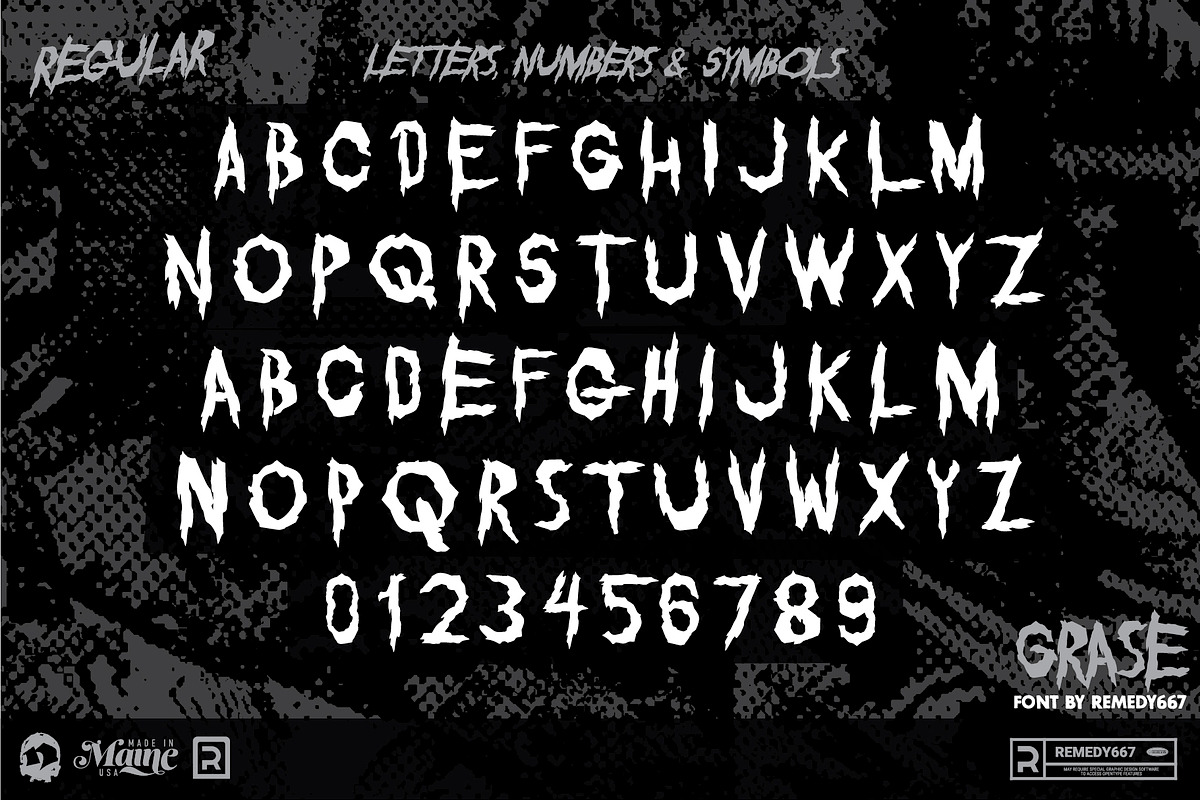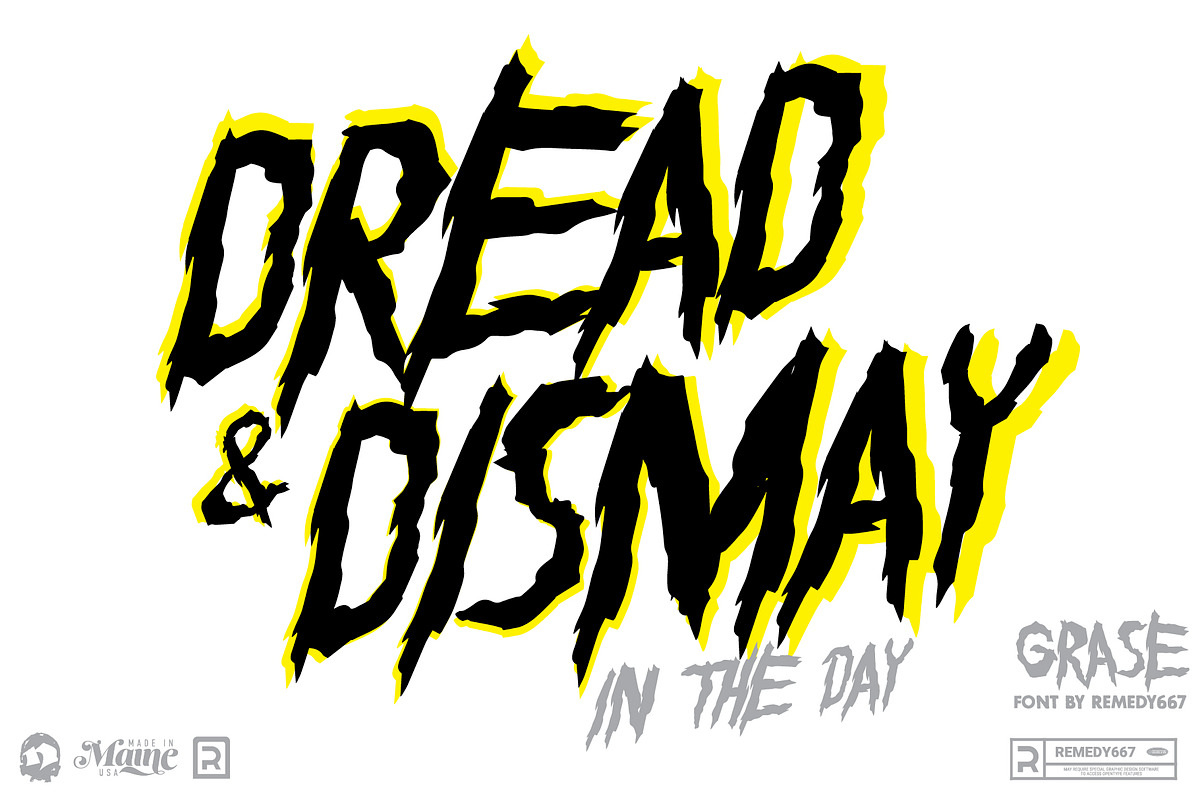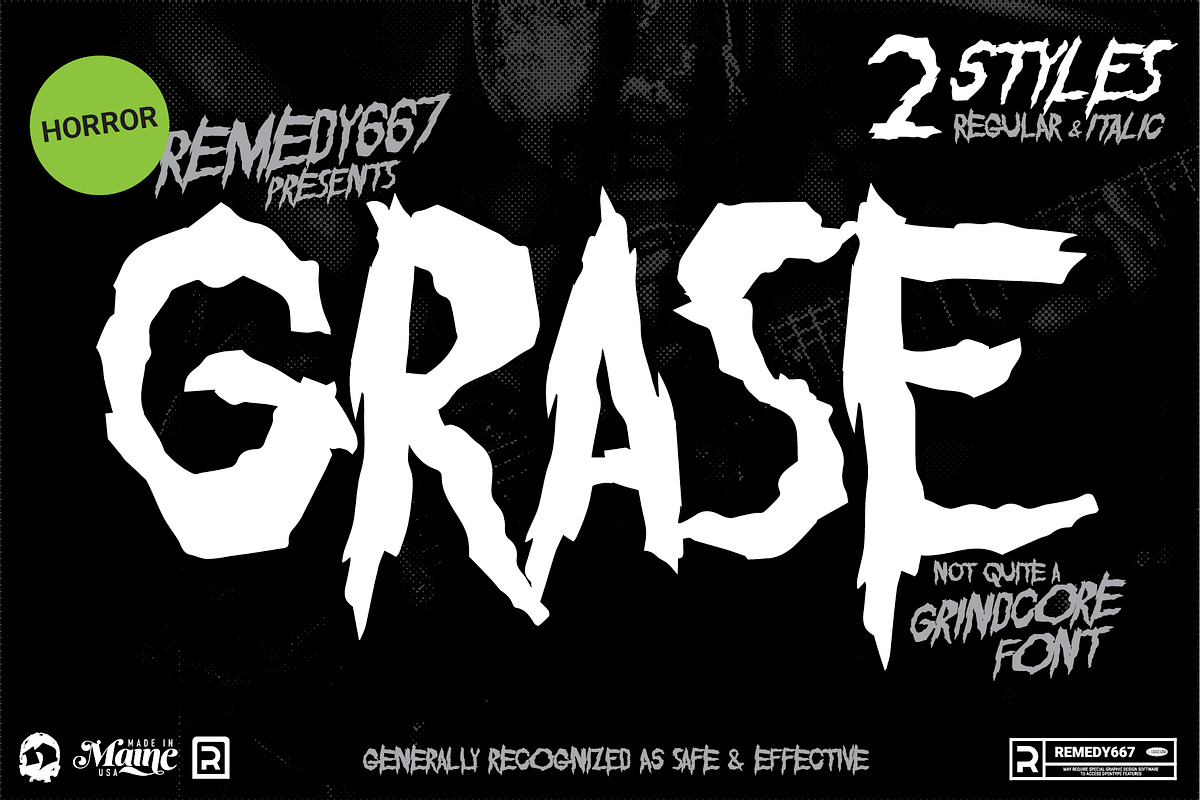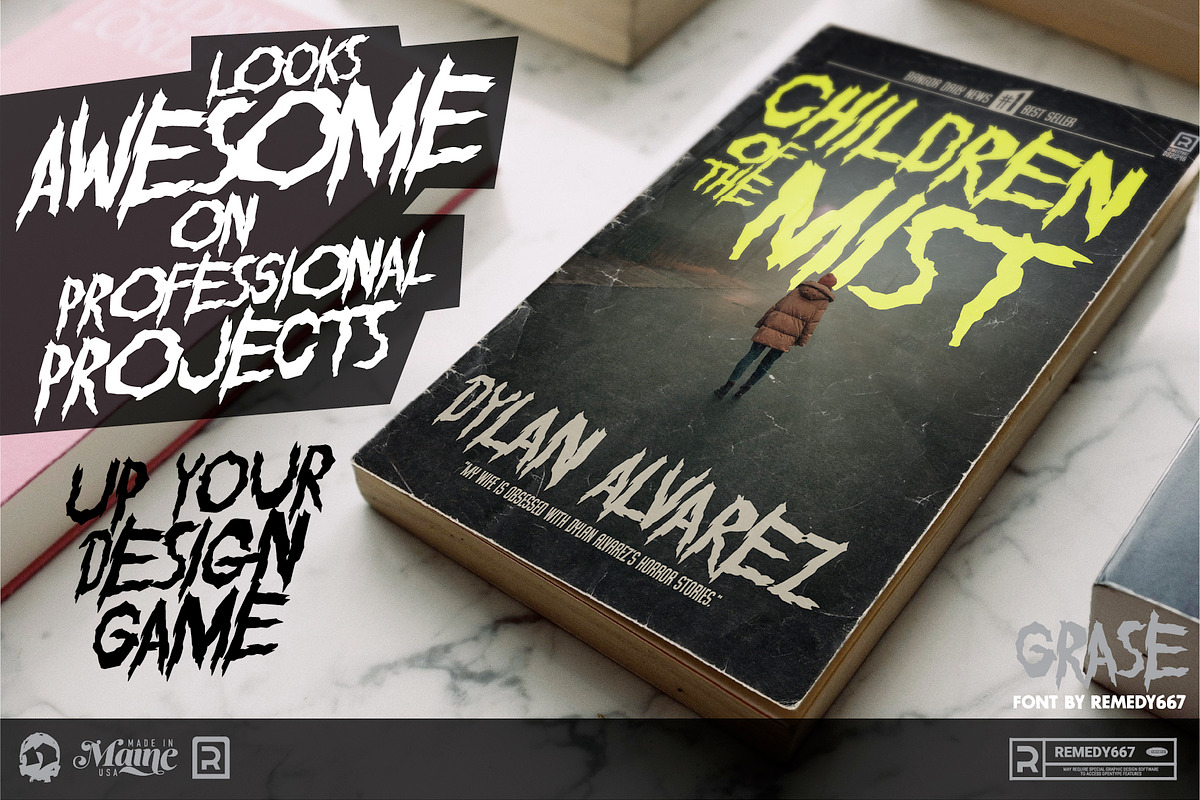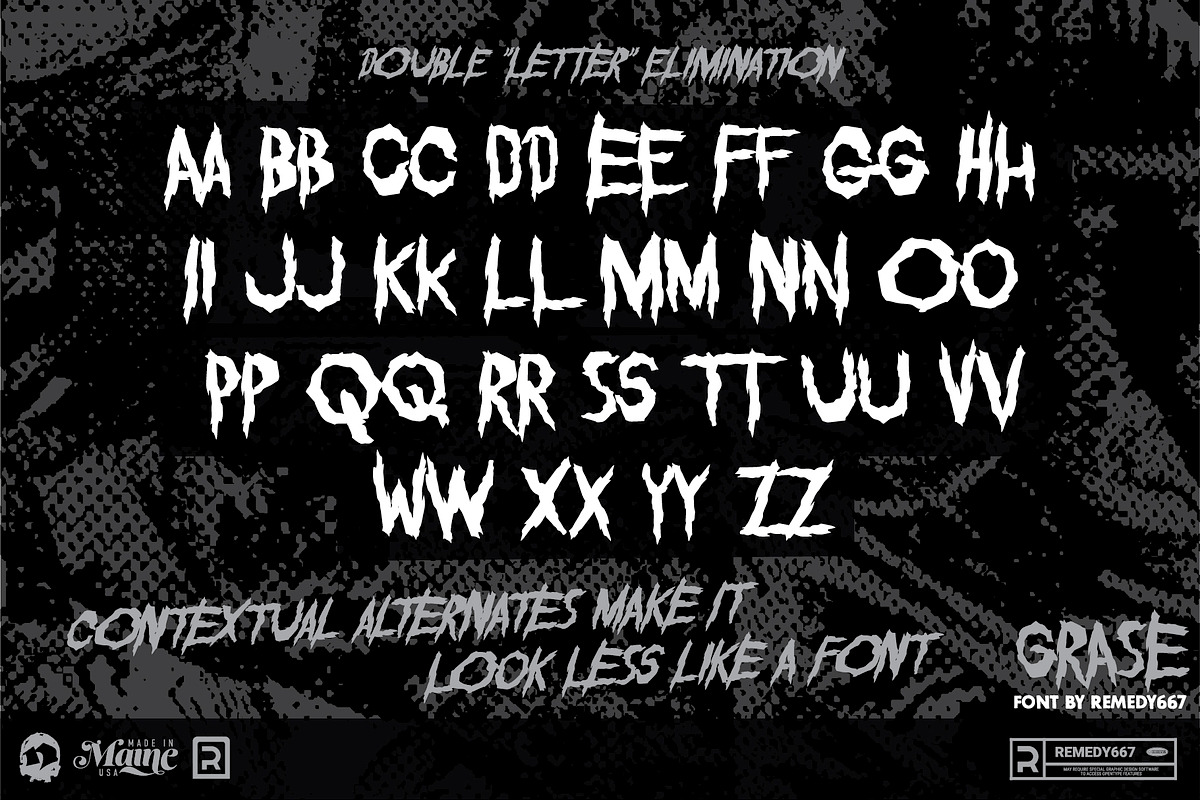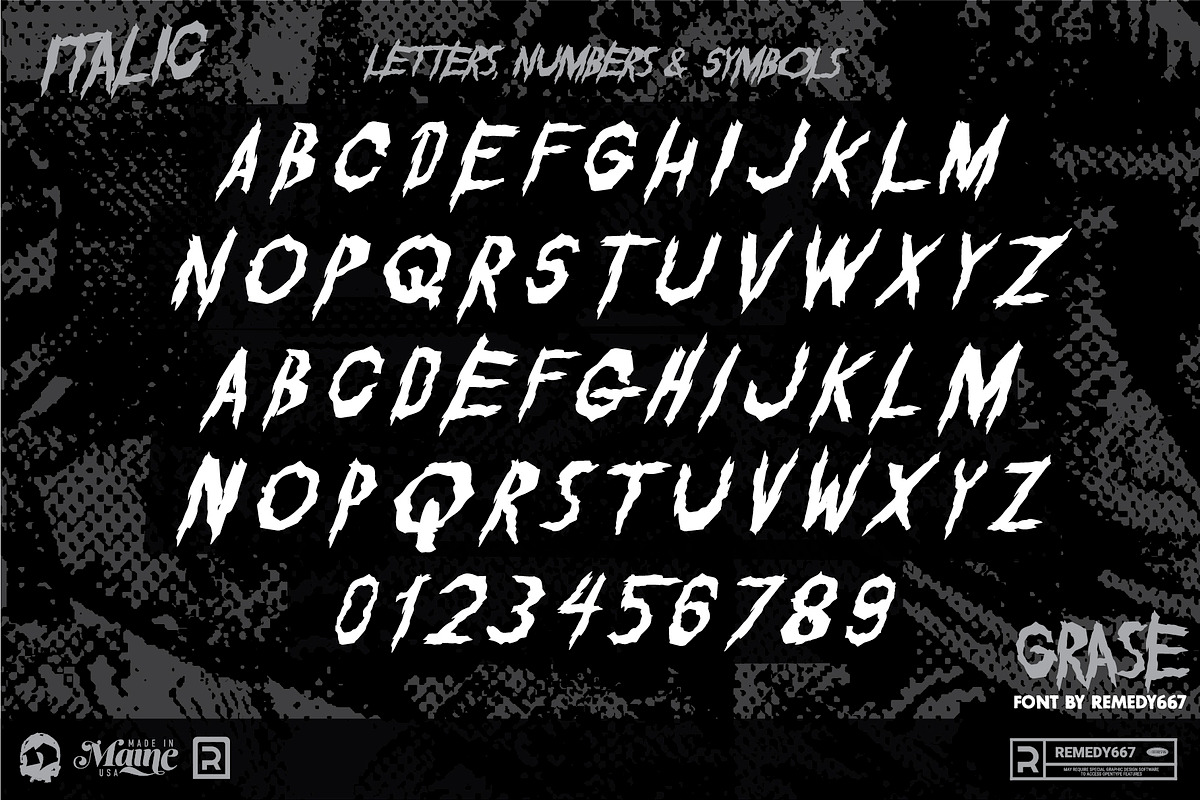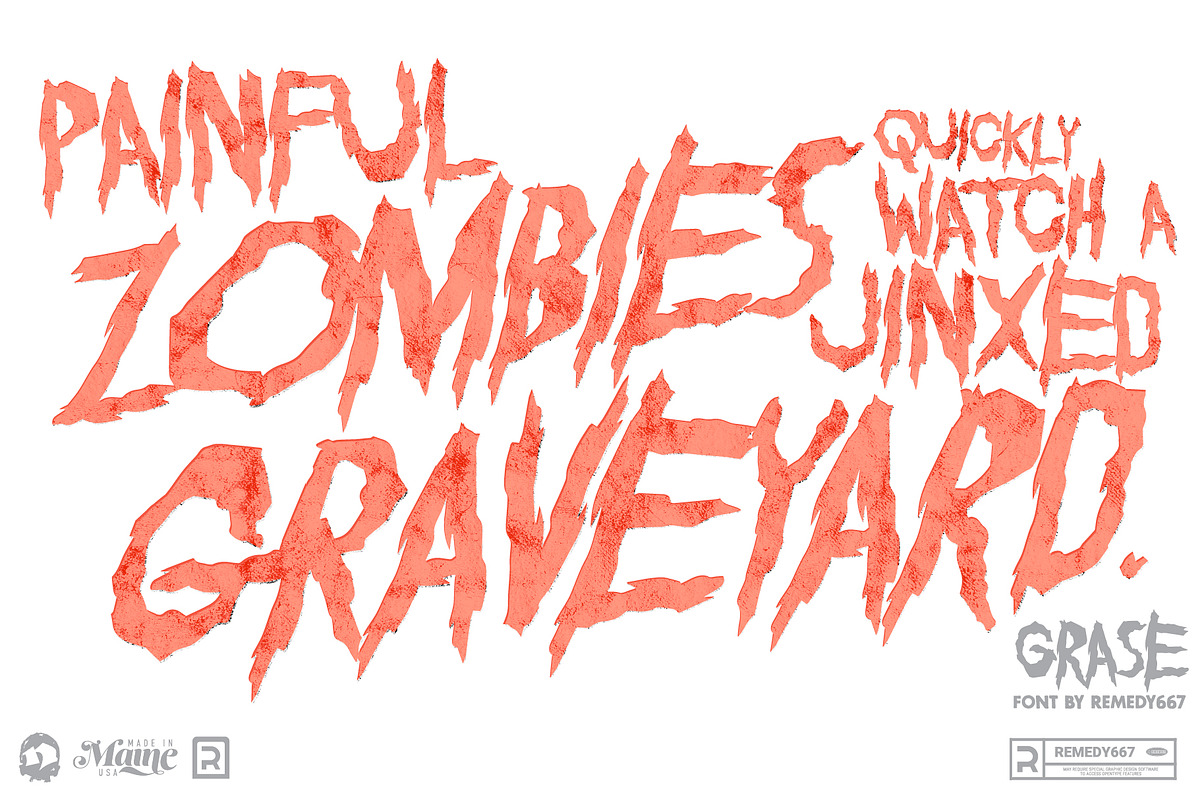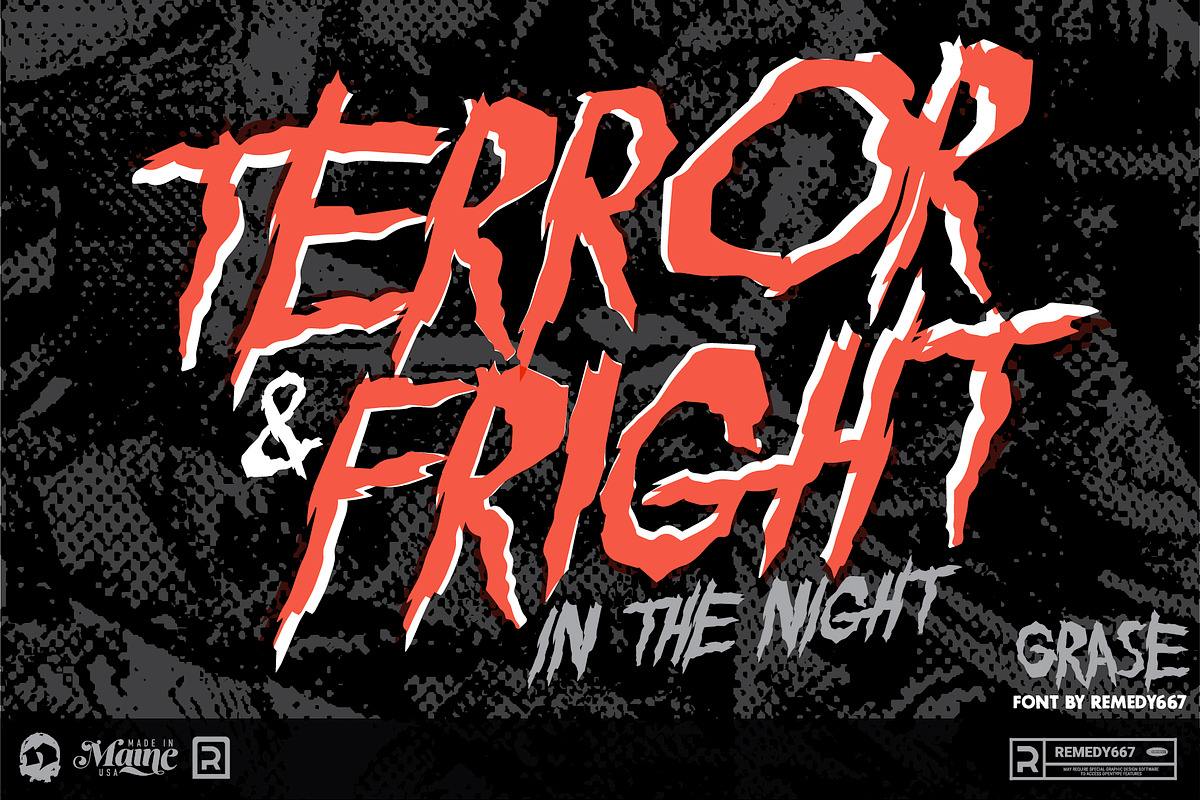
Grase - Eclectic Horror Font
Grase is a typeface with a lot of attitude. Designed for the creative, Grase brings a wild flair to your design work. You know that feeling when you find the perfect typeface, and you want to use it everywhere? Grase is the perfect typeface for you. Jagged like electricity, and quite a variation between thicks and thins will have all your graphic designer friends cringing. It definitely has its place though, no matter what you're designing. I dare you to give it a try! Add some spontaneity to your design with Grase.
- Grase pairs well with many backdrops - from vintage elegance to rustic chic to trendy grunge.
- Options for tons of different designs: headings, logos, posters, album covers, YouTube covers, apparel, etc. from horror to heavy metal, Grase has got you.